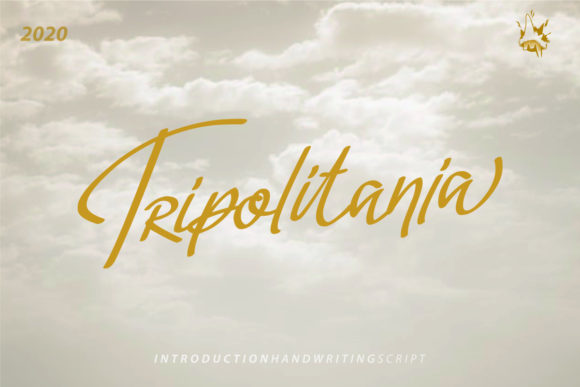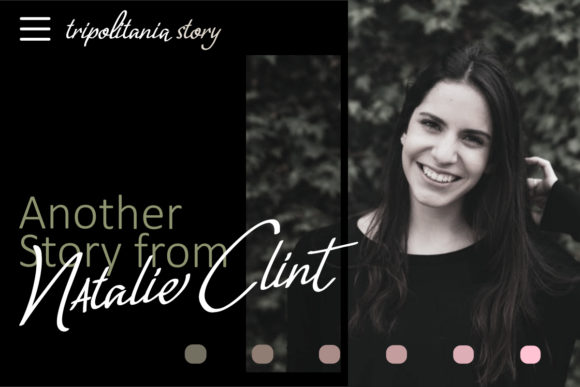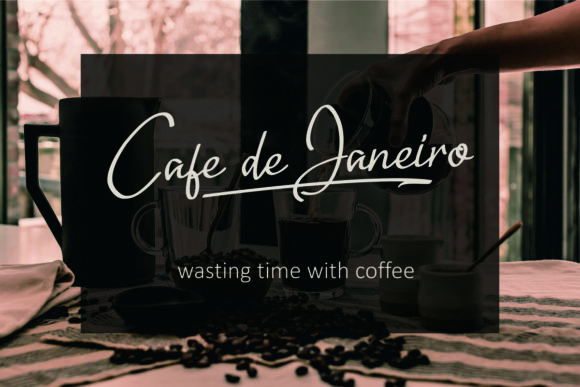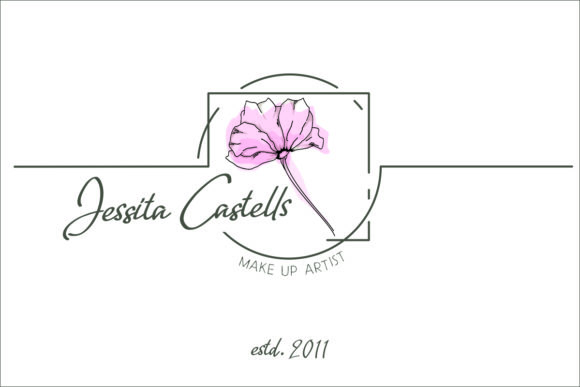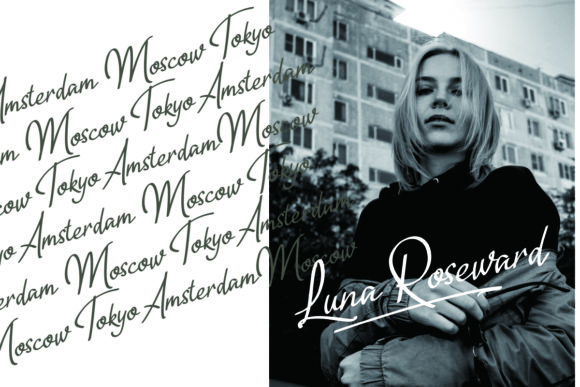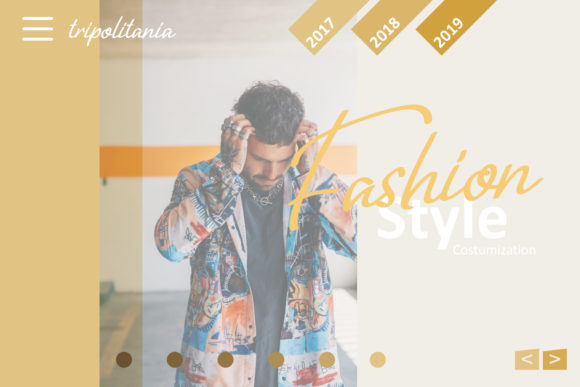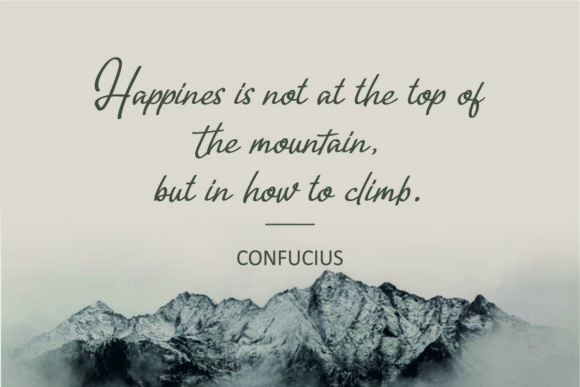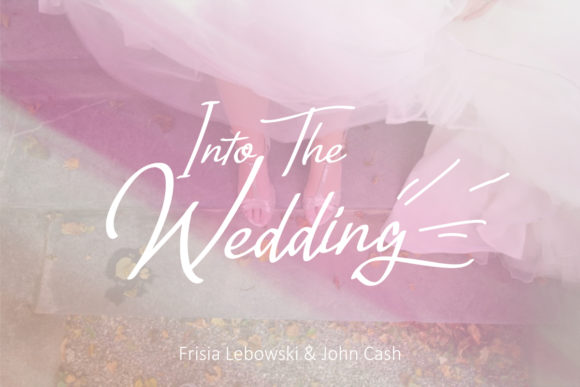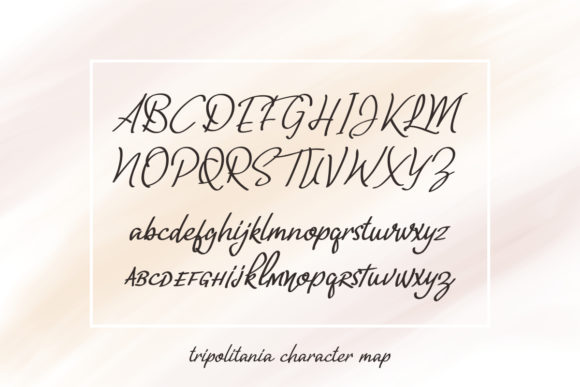
Tripolitania Font
About Tripolitania Font
Tripolitania is a stylish script font with a smooth handwritten style with more than 300 glyphs.
Perfect for any new project in need of a modern touch